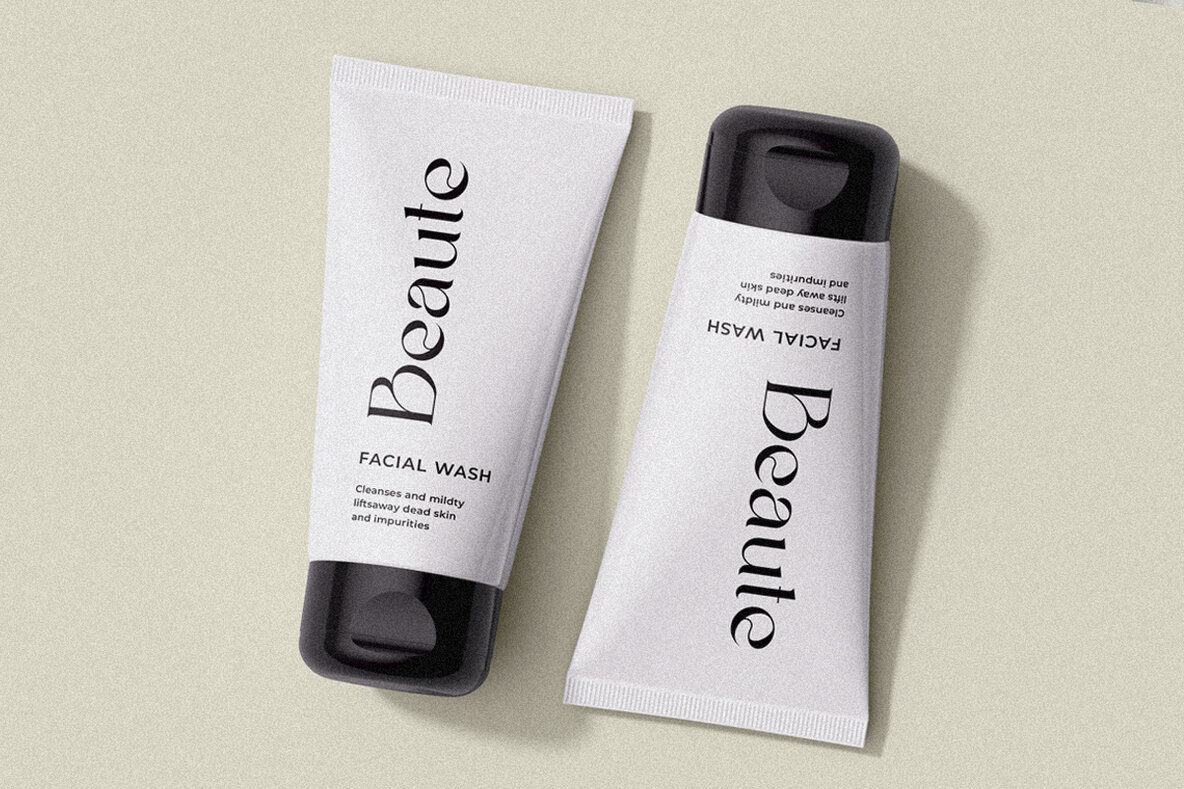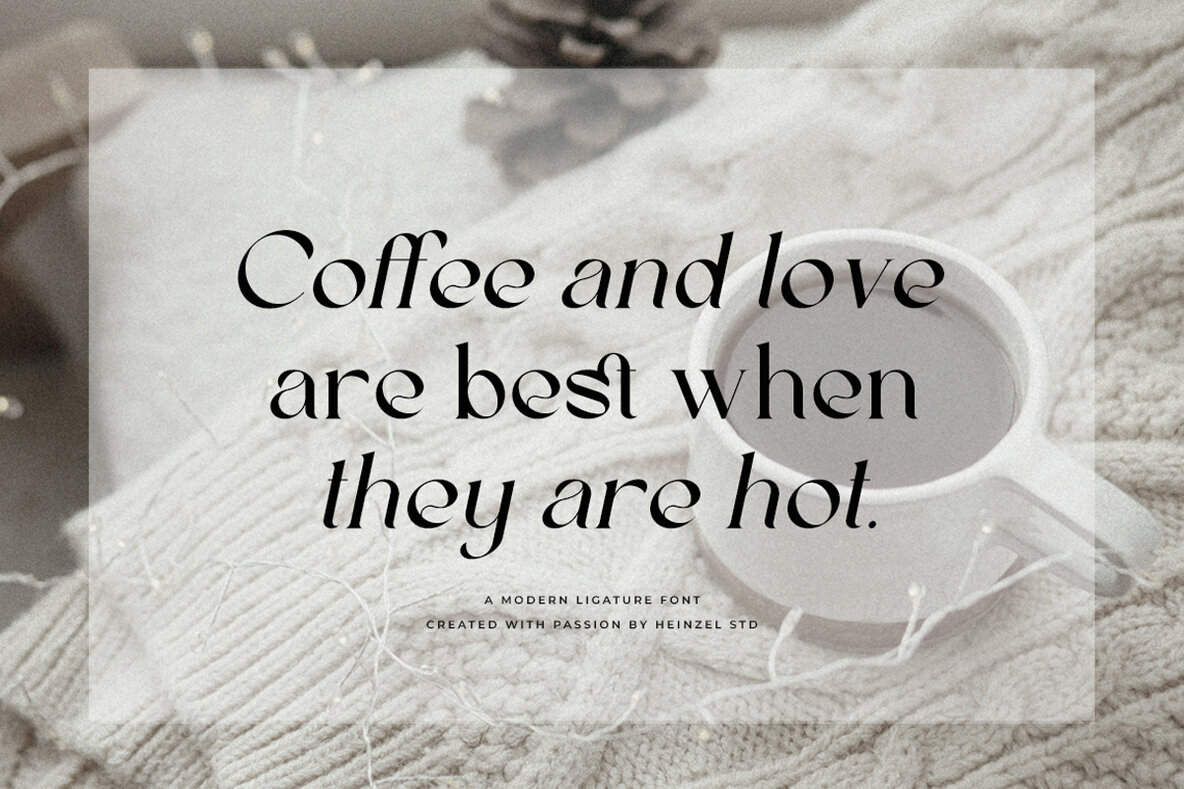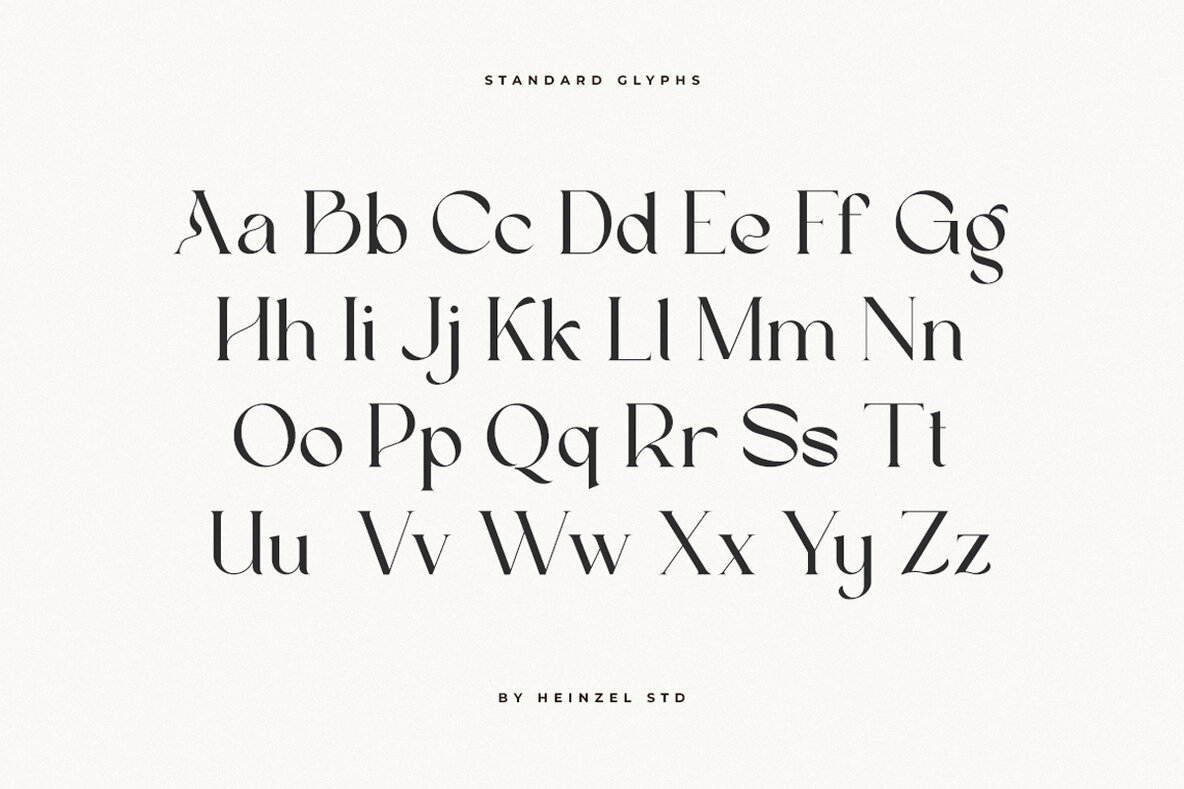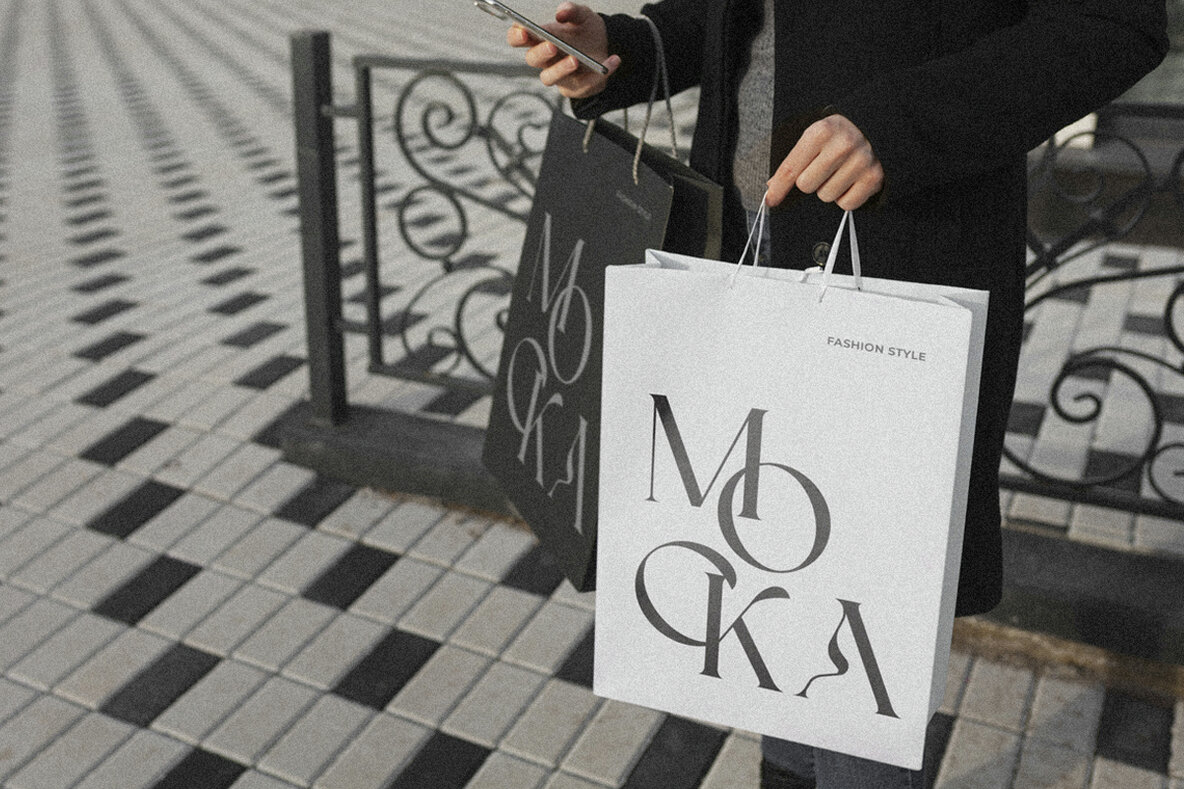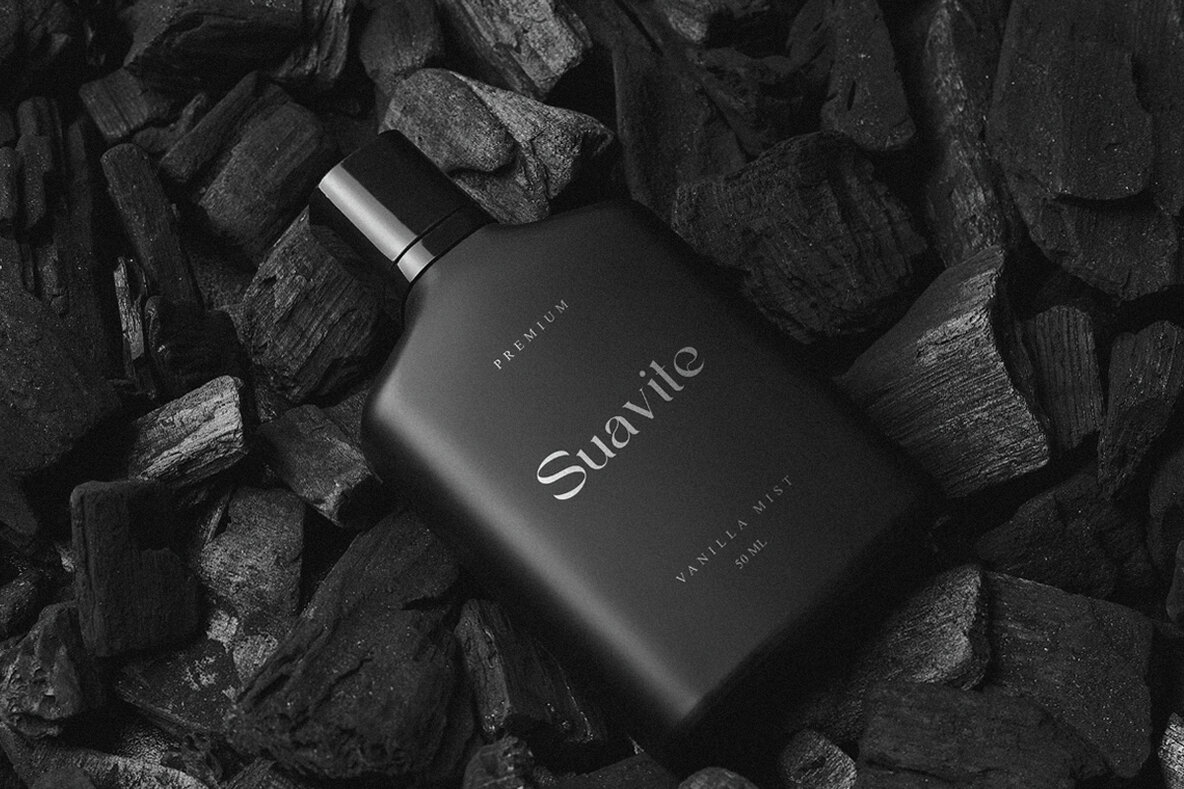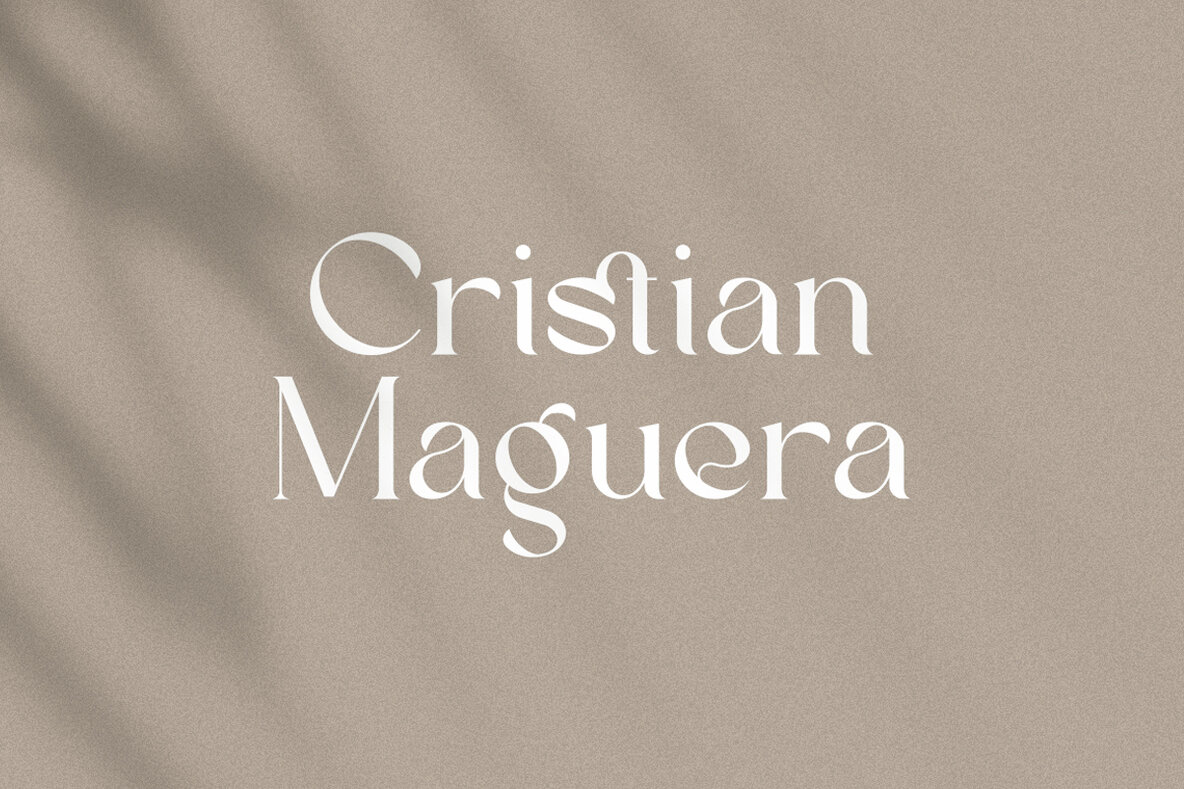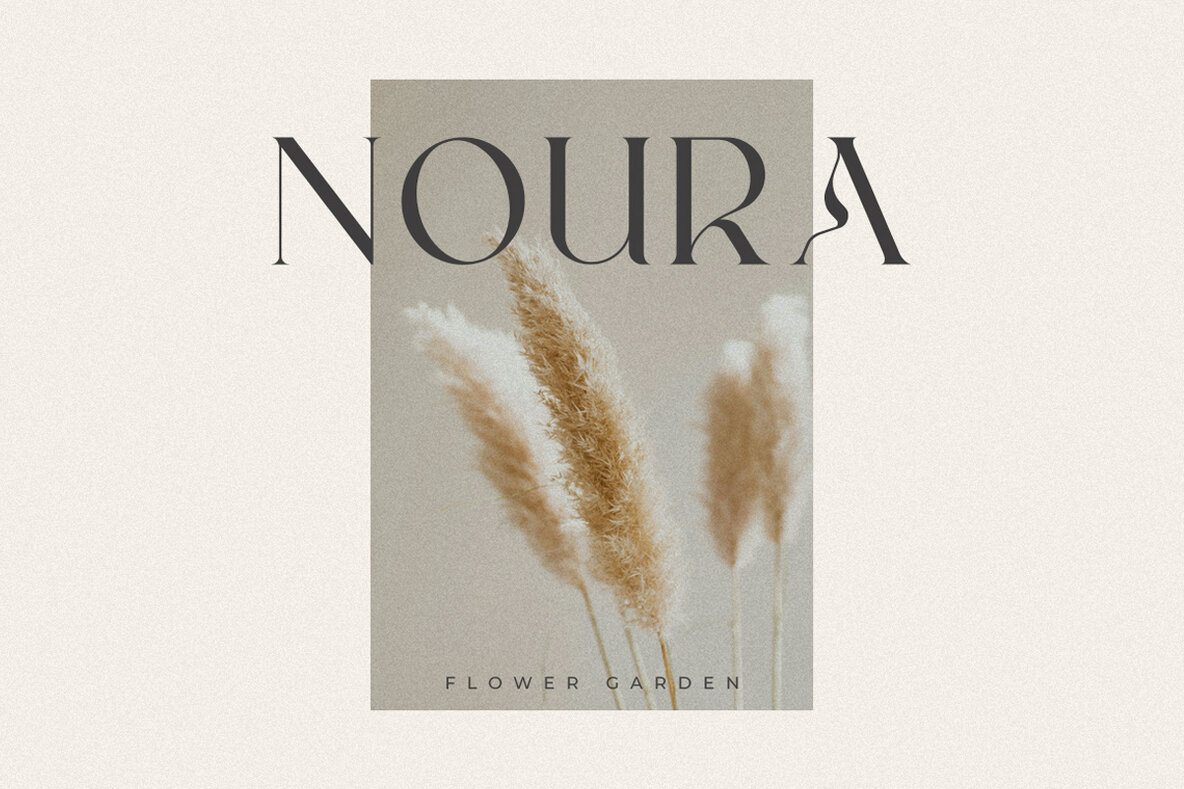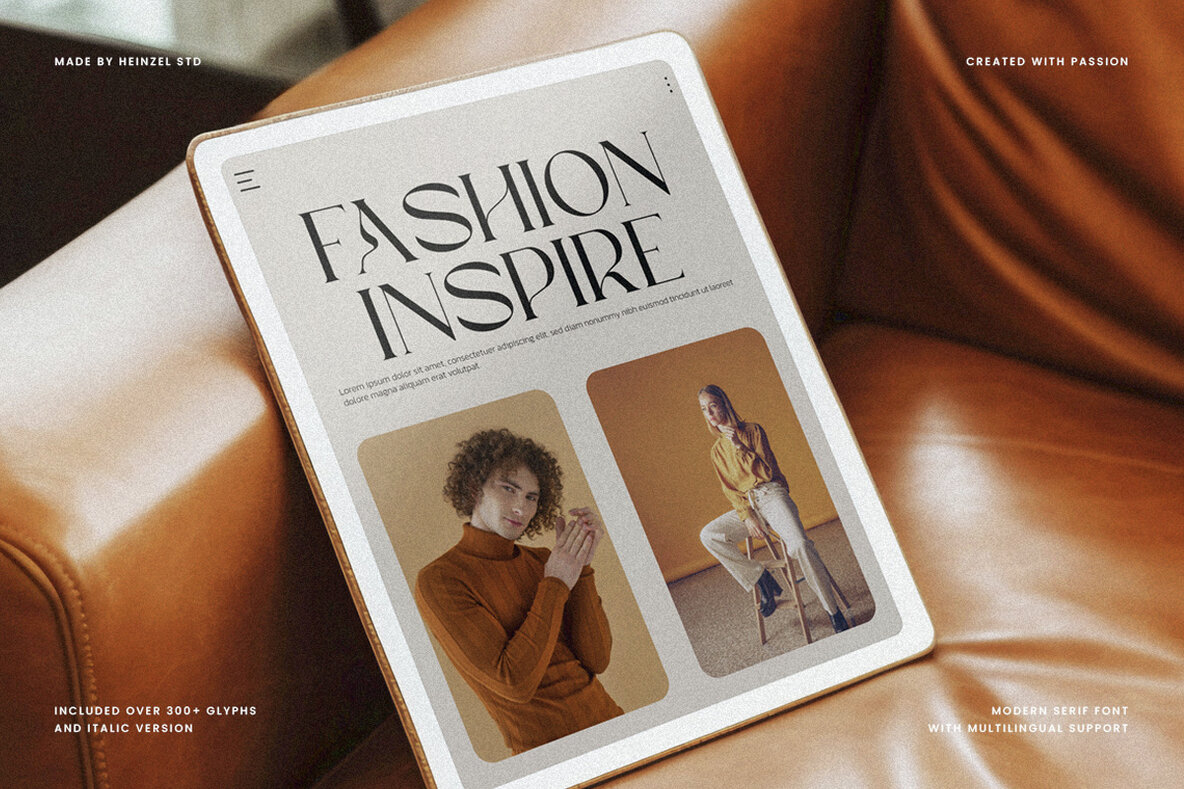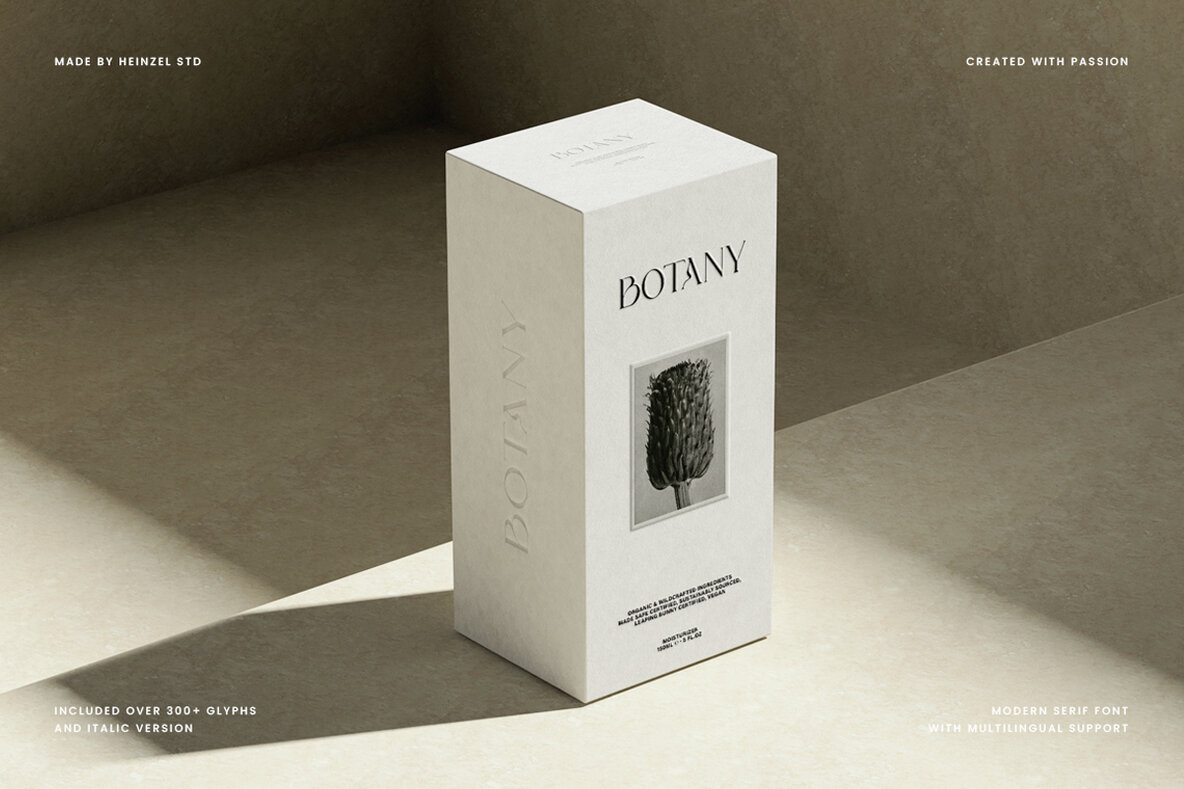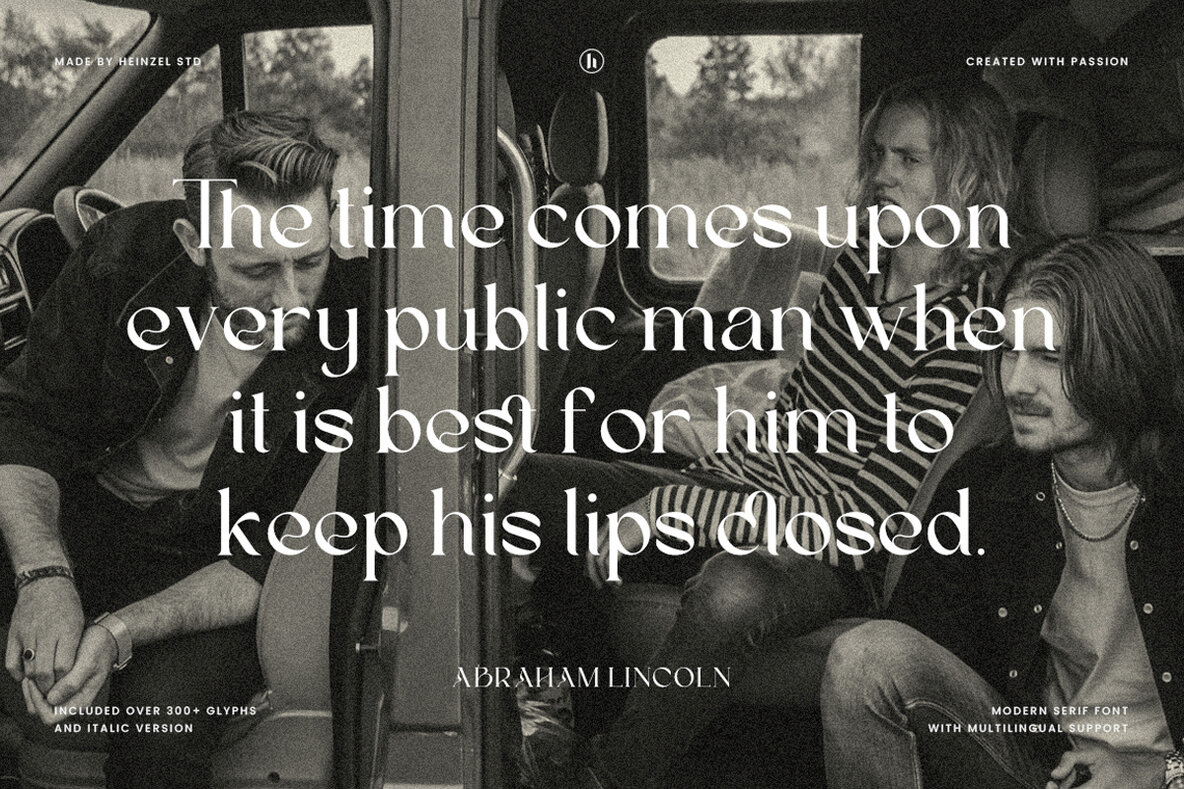
Scoth Brace Font
Scoth Brace is an elegant and modern serif font. Fall for its ravishing style and use it to create gorgeous logos, headline, branding, wedding invitations, beautiful stationary art, eye-catching social media posts, and much more! This font is PUA encoded which means you can access all of the amazing glyphs.